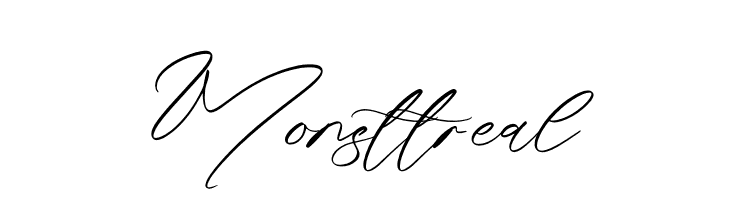
An ornate script font with intricate swashes and curls, perfect for decorative uses.
An elegant script font with intricate, flowing letterforms and elaborate swirls.
A flowing, cursive script font with elegant, connected characters.
A graceful script font with fluid, connected strokes and elegant curves.